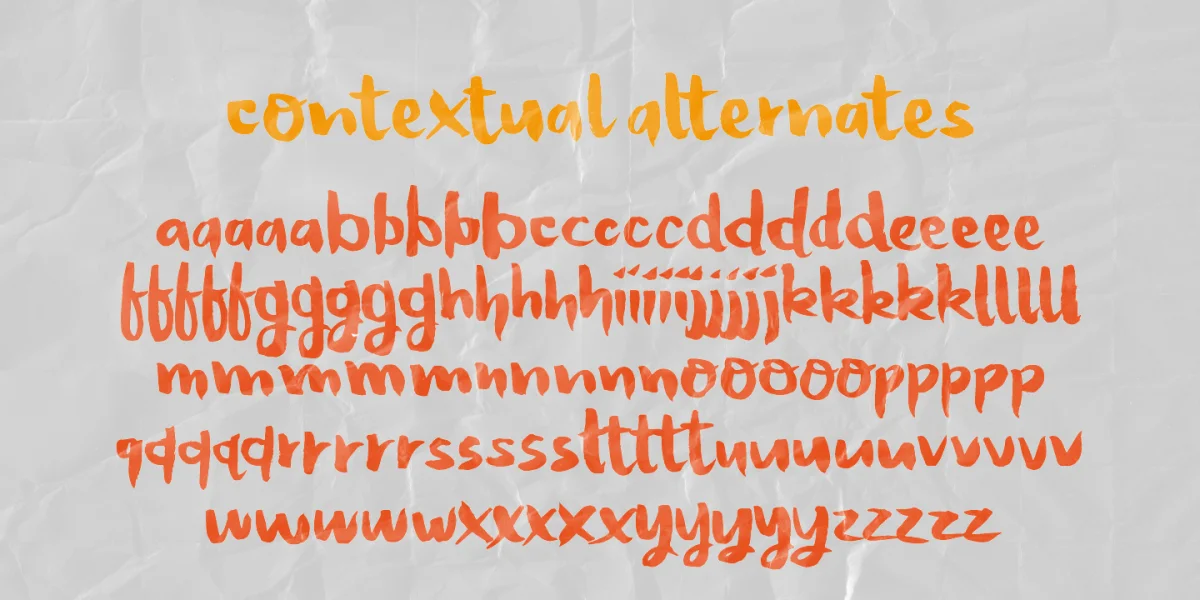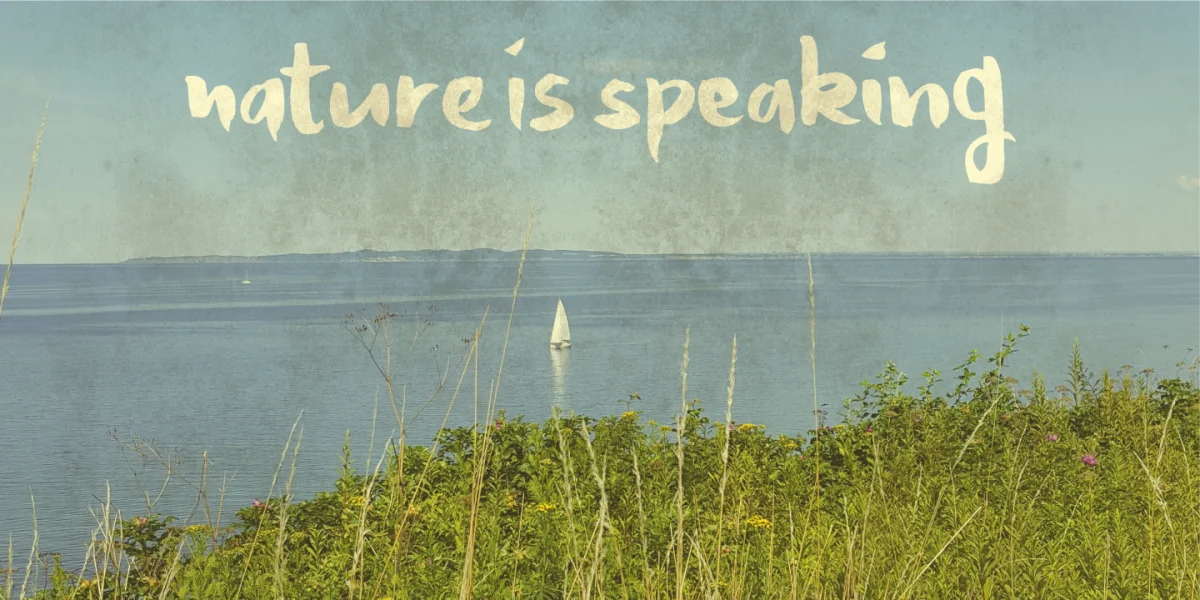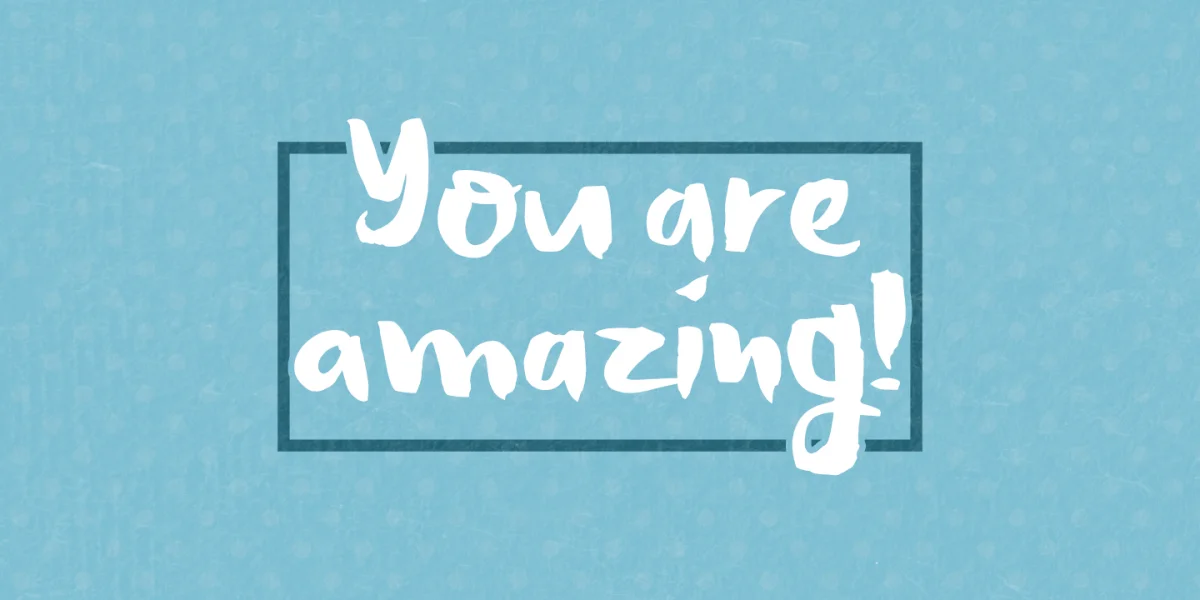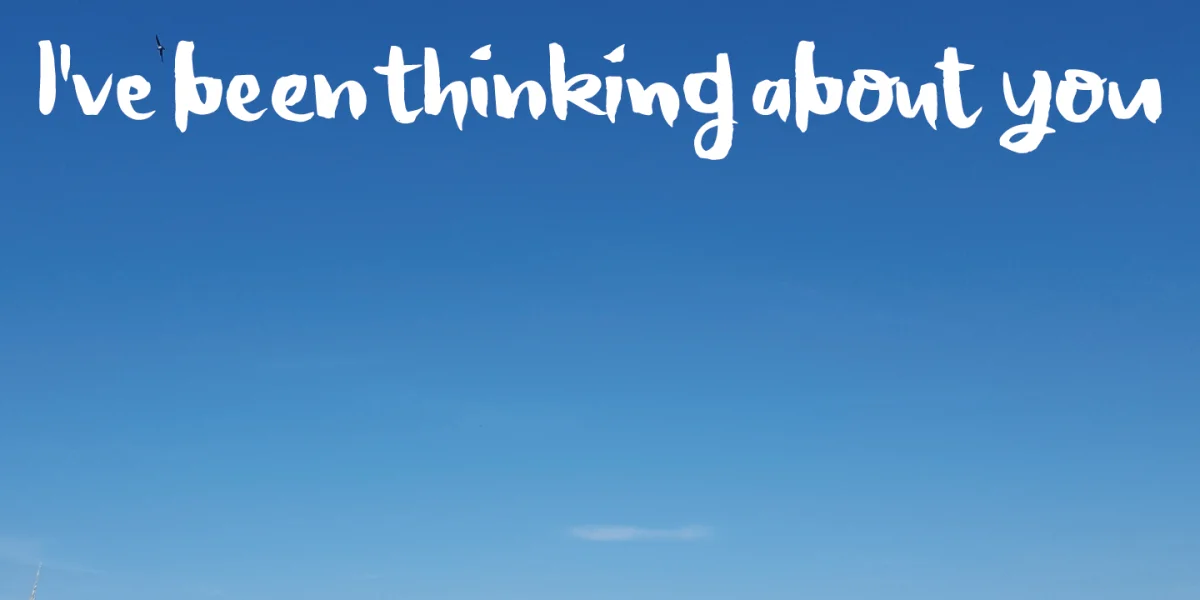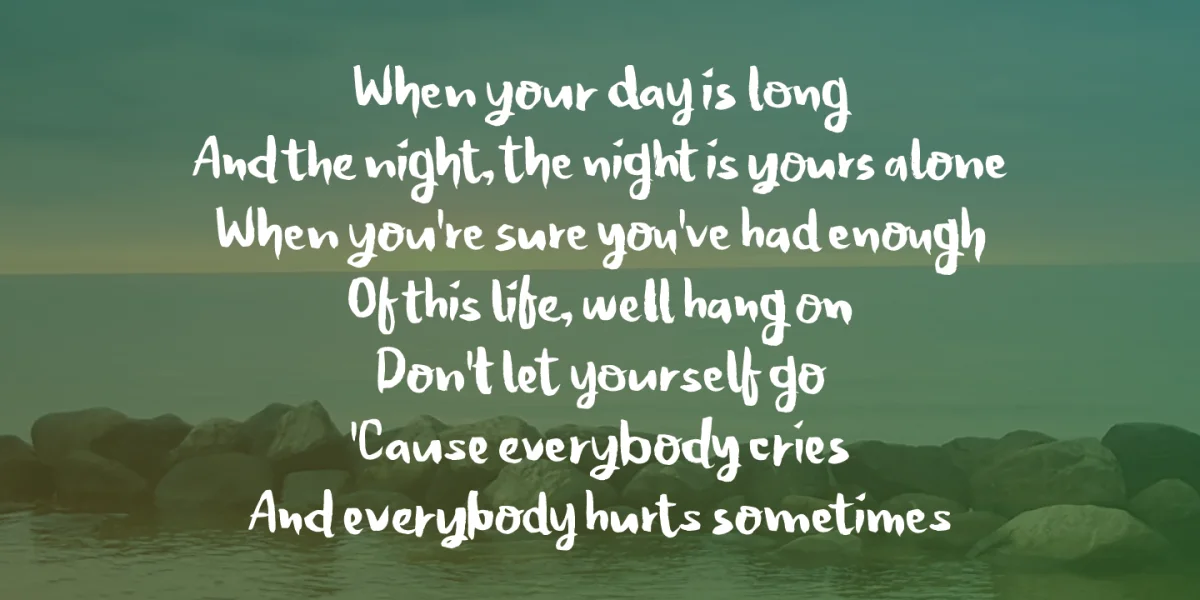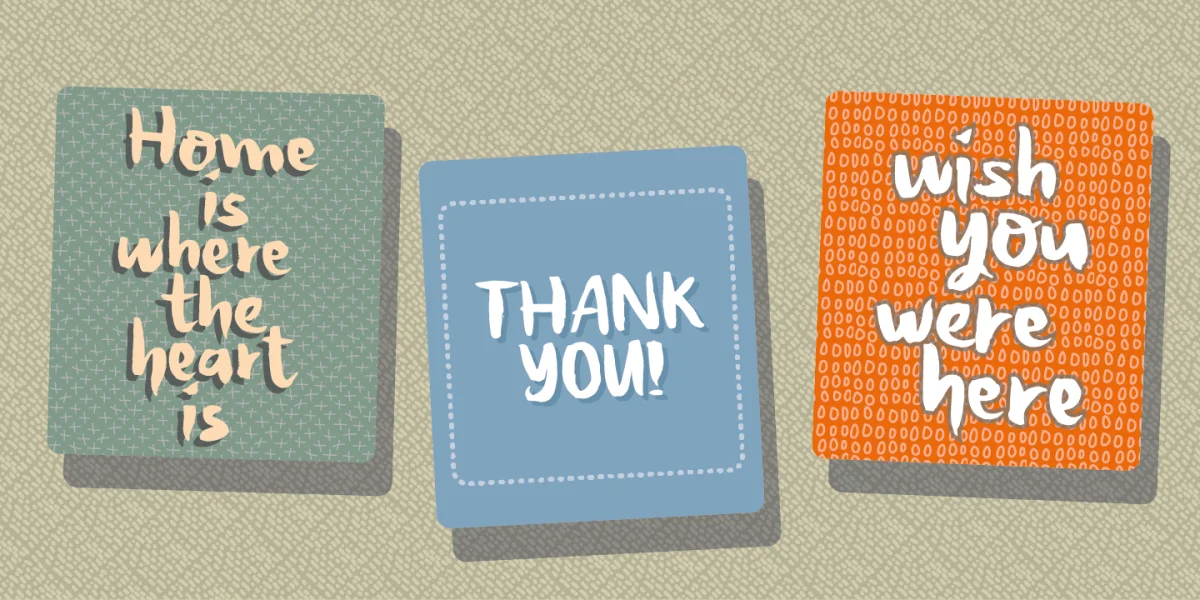
Honeyvoid is my handwritten font, and it is perfect for invitations, greetingcards, prints, logos and decorative sayings or headlines.
The letters vary beautifully in both height and weight. The shareware version is using contextual alternates, the font cycles with 5 different versions of each letter - and that’s a sweet trick to make your text look excactly like you did all the brushstrokes!
The shareware version of Honeyvoid comes with a large amount of accents, for many languages!